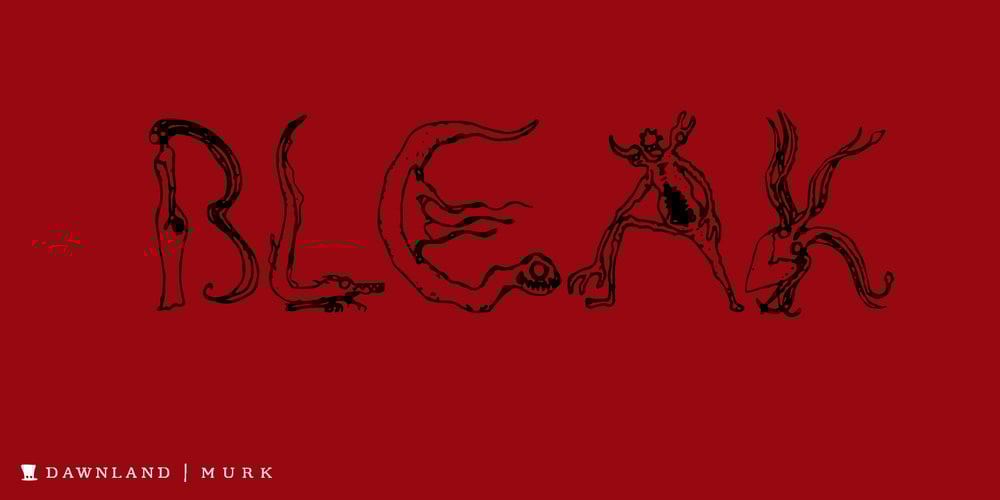
Murk Font Family was designed by Daniel Viberg and published by Dawnland. Murk contains 1 styles and family package options. 26 Mythical or mysterious Creatures. A highly decorative font where each creature form the letters A to Z.The upper case letters have detailed creatures/letters while the lower case hold silhouettes of the same creatures.The creatures were originally drawn 2016 during the 36 days of type project (http://www.36daysoftype.com/)